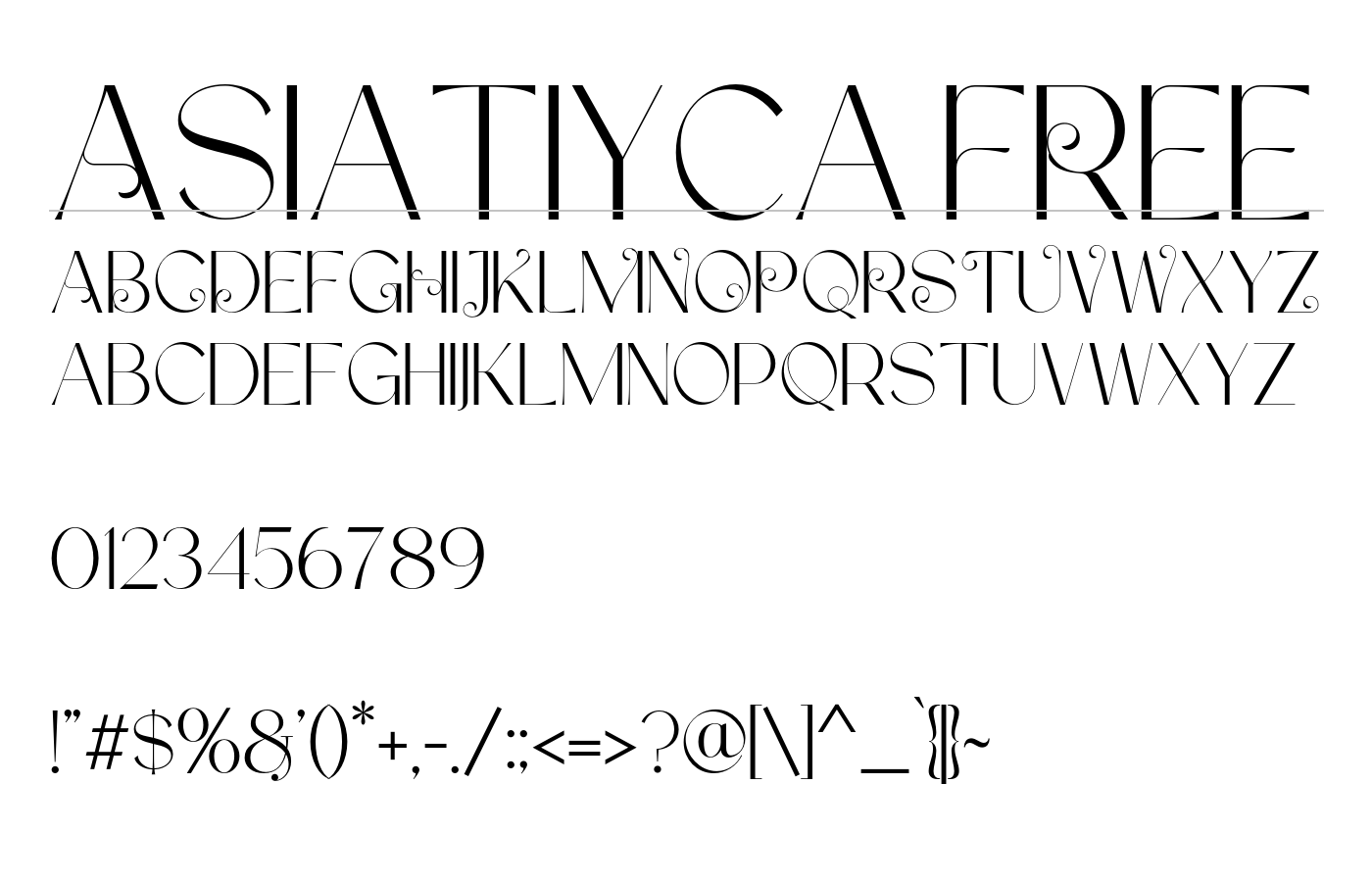
Asiatiyca is a stylish, modern serif font characterized by its tall, slender letterforms and high contrast between thick and thin strokes. It features elegant, delicate serifs and unique ornamental details like curled terminals, giving it a refined yet artistic feel perfect for luxury branding, fashion editorials, or sophisticated logo design. This font works best in headlines or decorative text where its distinctive shapes can stand out and add a sense of grace and sophistication.
Asiatiyca FREE Font
About Asiatiyca FREE Font